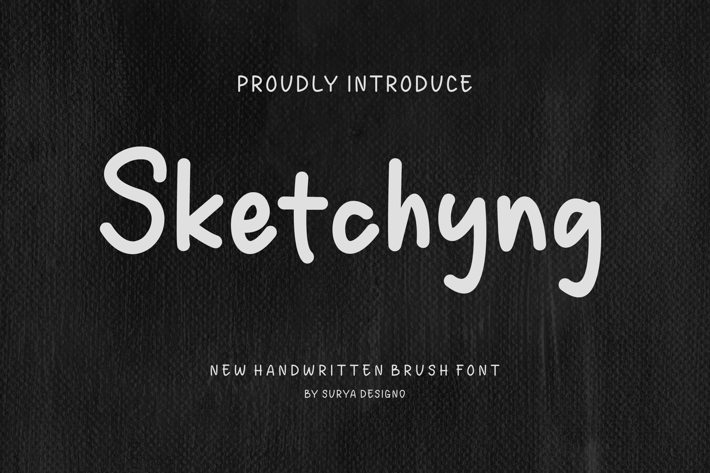
Sketchyng - Handwritten Font
Introducing our new product Sketchyng Font - Modern Font
Sketchyng Font - Modern Font is a bold and authentic display font. The font is suitable for any branding project like logo,
t-shirt printing, esport, and many more. outstanding in a wide range of contexts.
Sketchyng Font - Modern Font is a bold and authentic display font. The font is suitable for any branding project like logo,
t-shirt printing, esport, and many more. outstanding in a wide range of contexts.